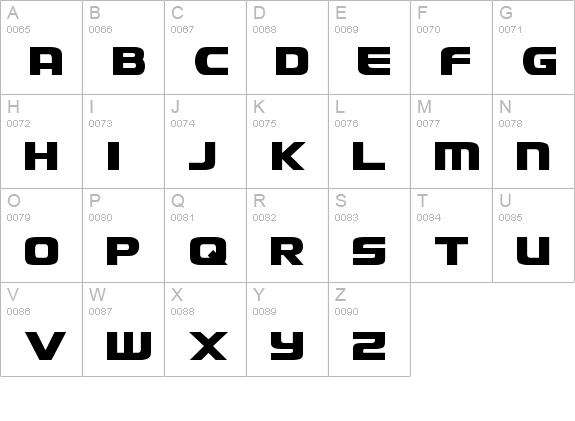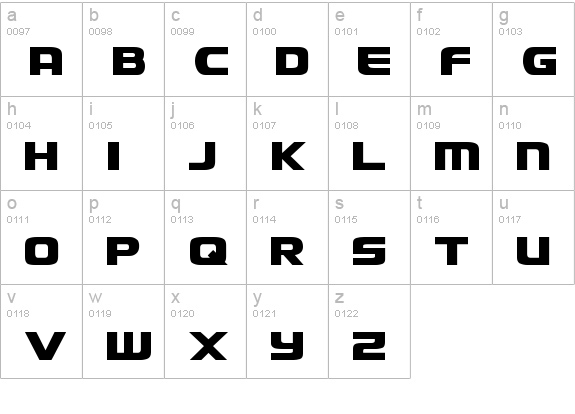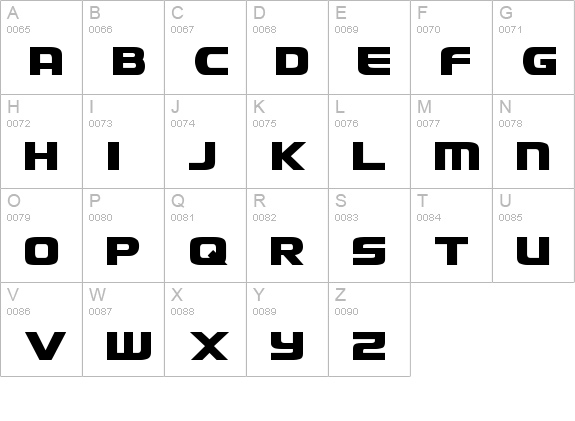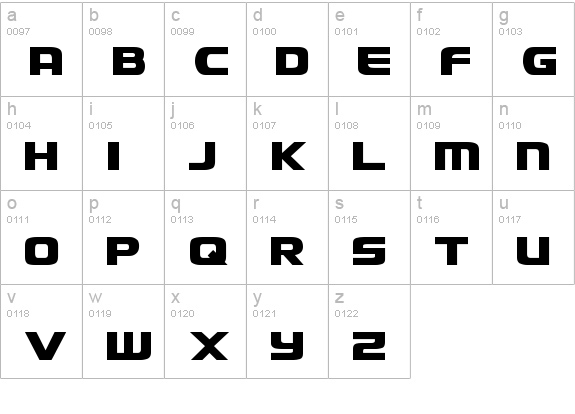
Richardson Brand Revolution Block Font Details
The Richardson Brand Revolution Block font is a captivating display font that exudes an air of strength and innovation. With its bold and prominent letterforms, this font is perfect for creating impactful designs that demand attention. Designed with precision and creativity in mind, Richardson Brand Revolution Block font offers a unique blend of modernity and classic aesthetics. Its sturdy and well-defined letters are carefully crafted to convey a sense of power and authority, making it an excellent choice for headlines, logos, and branding projects. What sets Richardson Brand Revolution Block font apart is its versatility. Whether you're designing for a corporate brand seeking to make a strong statement or a creative agency looking to add a touch of sophistication, this font can adapt to any style or concept effortlessly. Moreover, the best part is that Richardson Brand Revolution Block font is freely available to download at FontsMarket.com. This means that designers and enthusiasts can easily access this remarkable font and unleash their creativity without any limitations or cost. With its accessibility, this font empowers users to experiment, explore, and bring their design visions to life. So, if you're looking for a font that combines elegance, power, and accessibility, look no further than Richardson Brand Revolution Block font. It's the perfect choice for those who dare to make a lasting impression and leave a mark in the design world. Download it for free at FontsMarket.com and embark on a revolutionary design journey today.